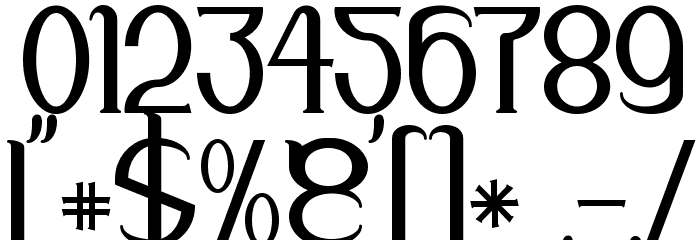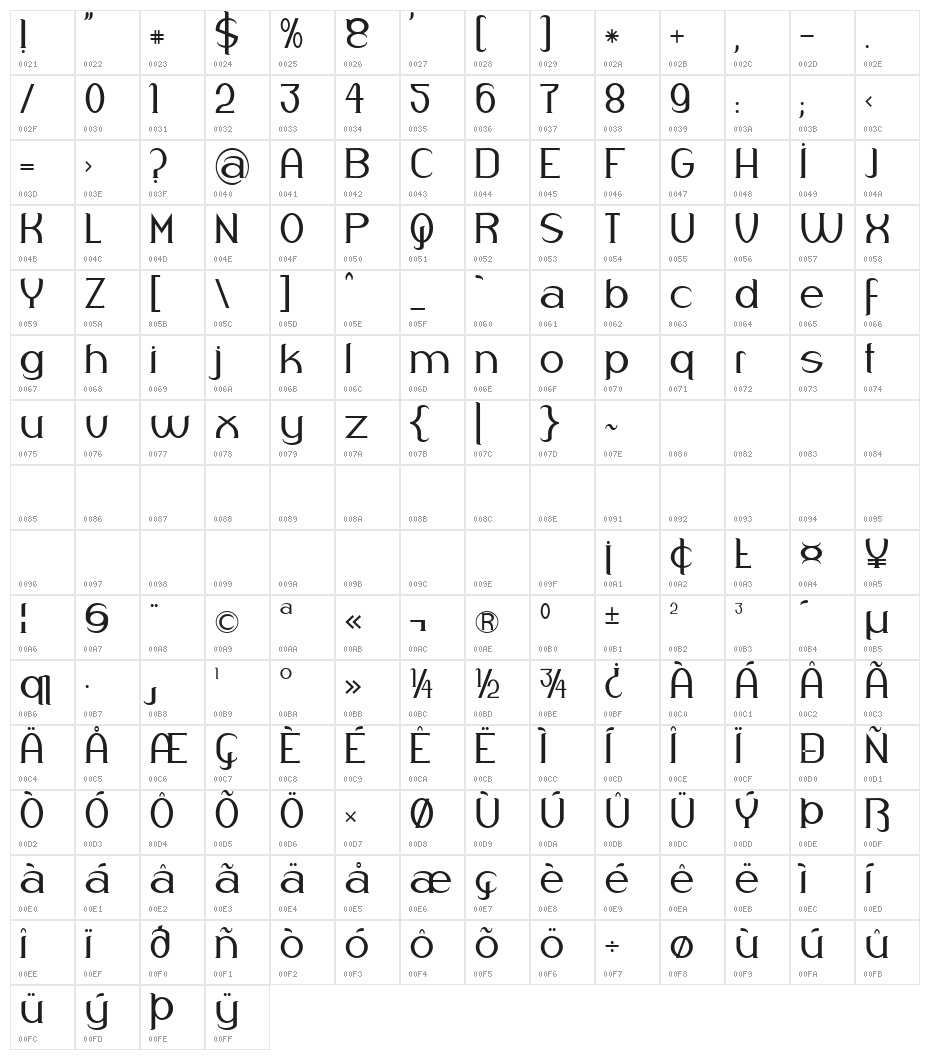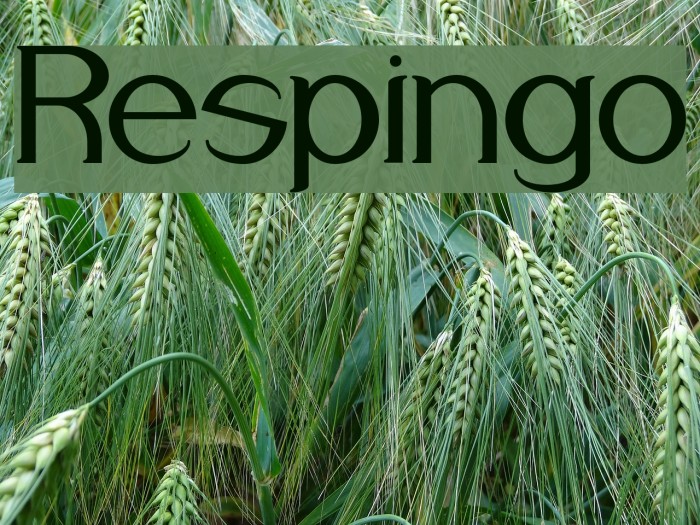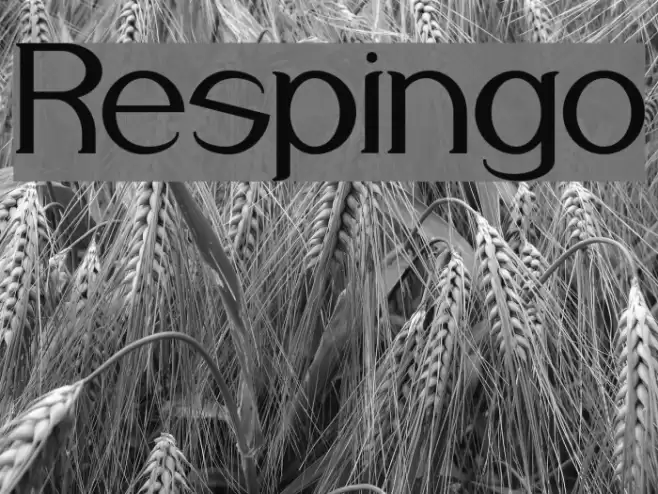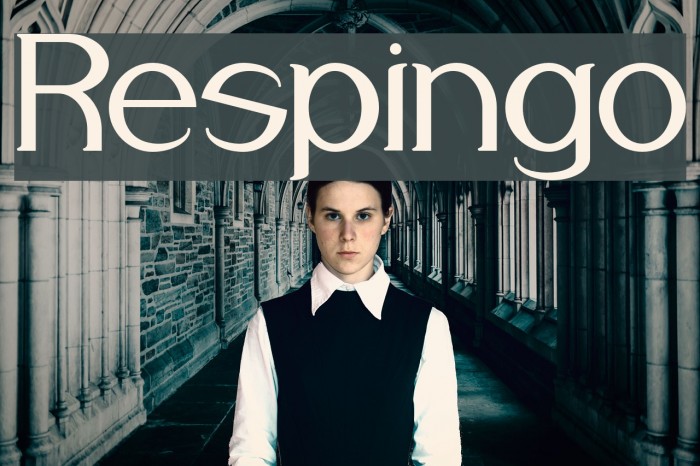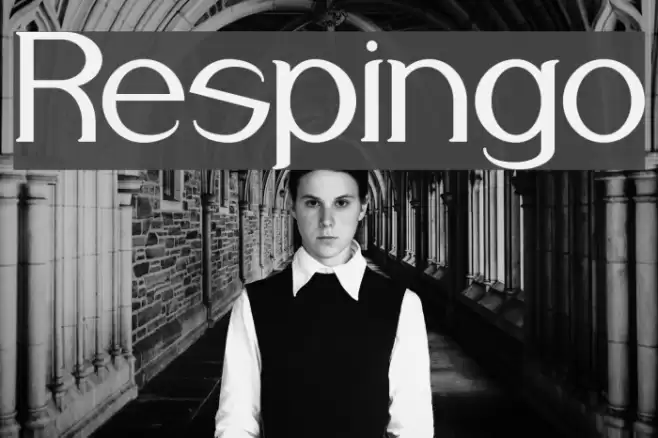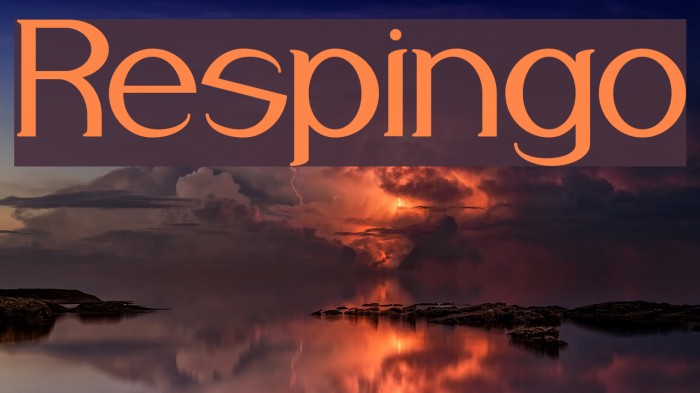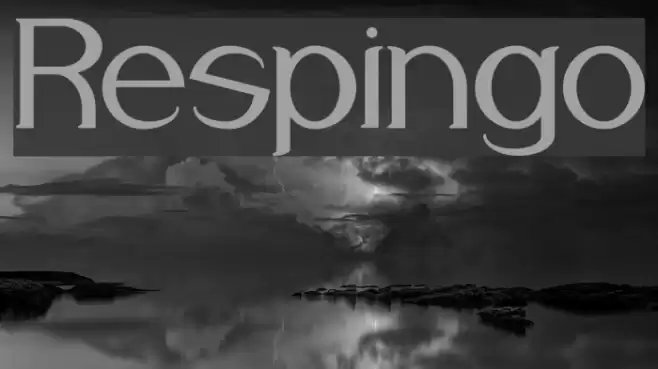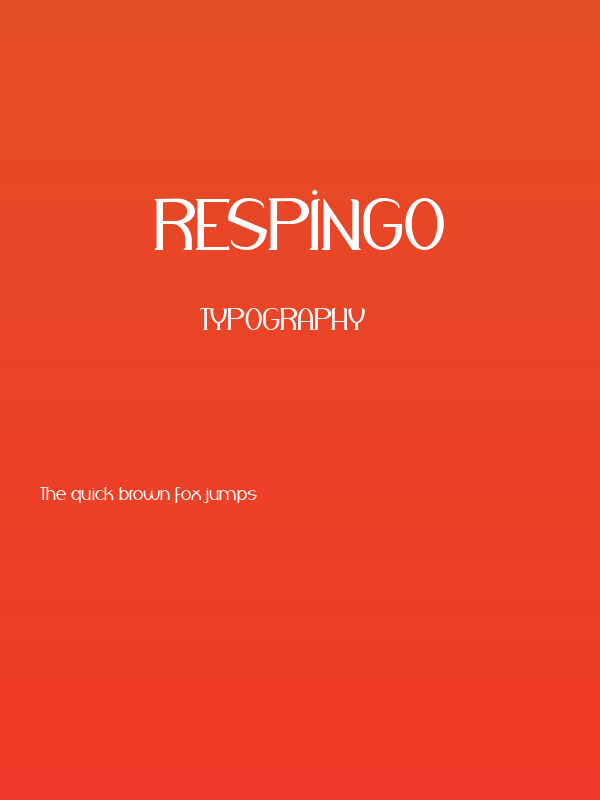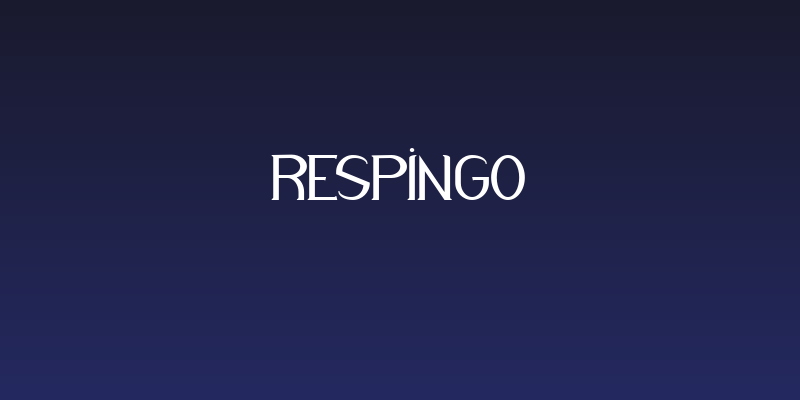
Respingo Font
Respingo Description
This font features a unique blend of modern and decorative elements, characterized by its distinct geometric shapes and stylish curves. The uppercase letters exhibit a bold presence with slightly condensed forms, while the lowercase letters maintain a consistent flow with rounded edges. The numerals are designed with a playful yet sophisticated flair, making them stand out. Special characters are crafted with attention to detail, adding to the font's versatility. Overall, the font offers a harmonious balance between readability and artistic expression, making it suitable for a variety of design applications.